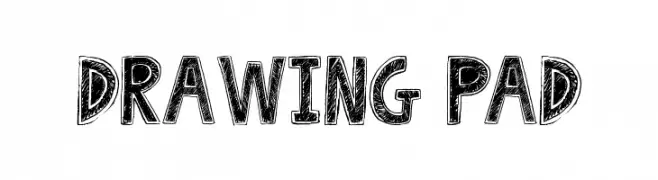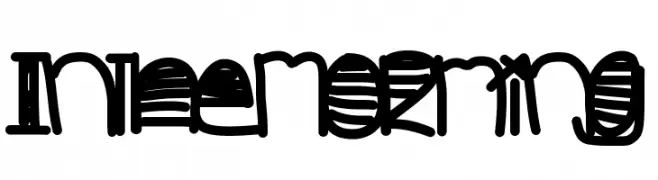
A casual, handwritten-style font with a playful and personal touch.
A casual, handwritten font with varied stroke thickness and a playful appearance.
A bold, playful, hand-drawn font with a dynamic and decorative style.
A bold, hand-drawn font with a playful, sketched appearance.
A casual, handwritten font with smooth, flowing lines and a playful touch.
A playful, hand-drawn font with a textured, sketch-like appearance.